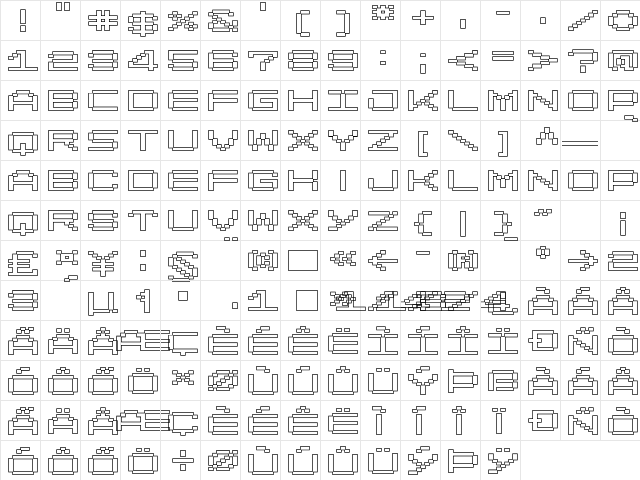
LomoWallOutline LT Std 50 Regular
Regular · Linotype Library GmbH Fidel Peugeot ·
DesignerFidel Peugeot
Design Context for LomoWallOutline LT Std 50 Typeface
LomoWallOutline LT Std 50 is built around its visual character rather than neutral utility — its distinctive forms are designed to make an impression at display sizes. Its slender proportions lend an understated elegance to any composition.
Font Pairing: Pair with a clean neutral sans-serif for body copy to let LomoWallOutline LT Std 50's character lead without overwhelming the composition.
Pro Tip: Use LomoWallOutline LT Std 50 exclusively at display sizes — it was designed to be seen, not read at length. Let a neutral companion handle body copy.